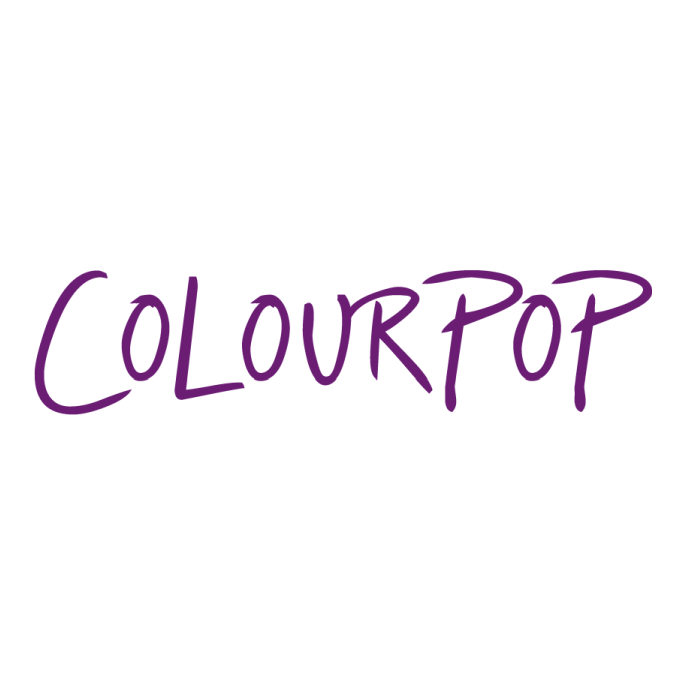
ColourPop Logo Font
CosmeticsColourpop is a popular makeup brand founded in 2014 in Los Angeles, California. Known for its affordable prices and wide range of colorful products, including lipsticks, eyeshadows, and highlighters.
The logo of ColourPop is most probably set in Irrep, which is a handwriting font created by Dale Harris. This font can be used for both personal and commercial purposes and is available for download in the Fonts Used Section.